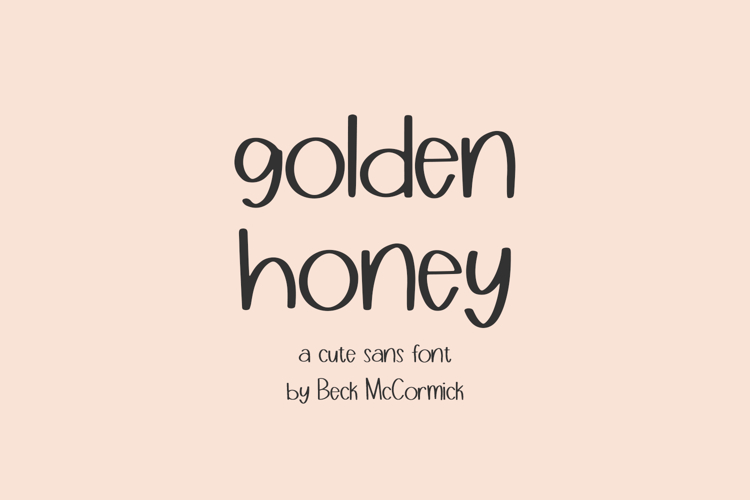
Golden Honey Sans is an adorable handwritten sans font. This font is neat & tidy with a little bouncy cuteness. Golden Honey Sans is perfect for logos & branding, greeting cards, painted banners, digital planners, note-taking apps, Canva, Cricut projects, Silhouette projects, designing SVG files, laser cutting projects, & more.